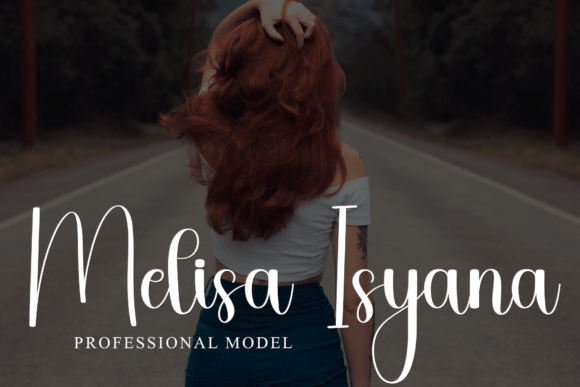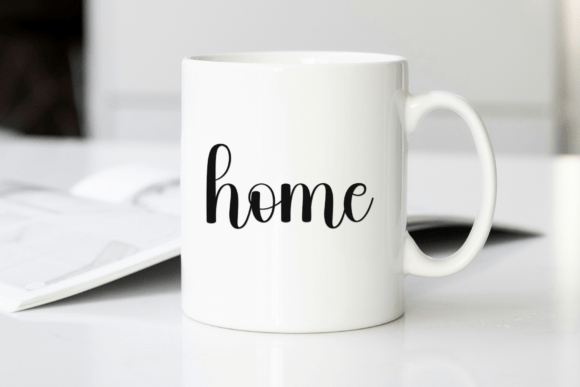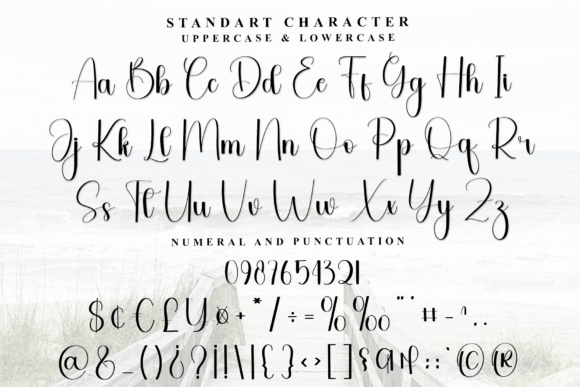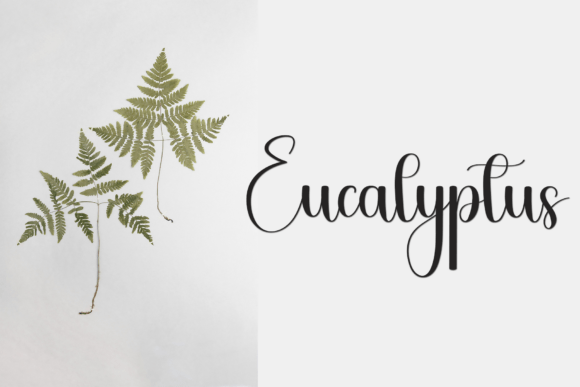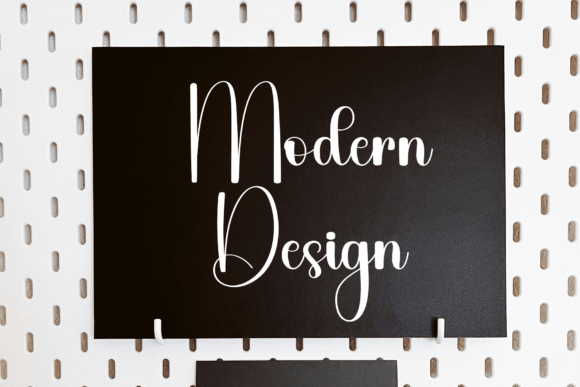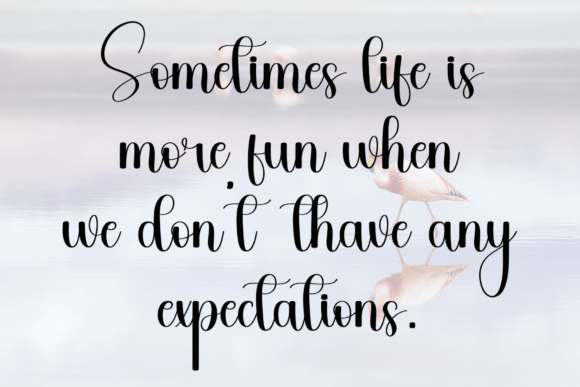
Discover the Charm of Danied Font: A Casual and Creative Companion for Designers
In the world of typography, fonts play a crucial role in conveying emotions and setting the tone for various design projects. If you’re a designer or crafter looking for a font that exudes warmth, friendliness, and a touch of playfulness, then Danied Font is an excellent choice. This casual and creative font is perfect for personal projects, invitations, social media graphics, and any design that requires a relaxed and approachable feel.
The Unique Characteristics of Danied Font
Danied Font boasts round, playful strokes that create a charming and laid-back atmosphere. Its hand-drawn aesthetic adds a fun and unique touch to any design, making it stand out from more traditional fonts. The font’s casual nature makes it an ideal choice for designers who want to add a personal touch to their work. Whether you’re creating a birthday invitation, a social media post, or a personal blog, Danied Font is sure to bring a smile to your audience’s faces.
Technical Features of Danied Font
Danied Font is a versatile font that caters to the needs of designers and crafters alike. Its relaxed and approachable feel makes it suitable for a wide range of projects, including:
• Personal projects: Add a touch of warmth and friendliness to your personal blog, journal, or scrapbook.
• Invitations: Create charming and playful invitations for birthdays, parties, or special events.
• Social media graphics: Elevate your social media posts with a unique and eye-catching font that grabs attention.
• Crafting projects: Use Danied Font to add a personal touch to your DIY projects, such as handmade cards, gift tags, or labels.
Tips for Using Danied Font Effectively
To get the most out of Danied Font, consider the following tips:
• Pair Danied Font with complementary fonts to create visual interest and contrast.
• Experiment with different colors and textures to enhance the font’s playful and hand-drawn feel.
• Use Danied Font in combination with graphics and illustrations to create engaging and dynamic designs.
• Don’t be afraid to get creative and try out new and innovative ways to use Danied Font in your designs.
Danied Font is a charming and versatile font that is sure to become a favorite among designers and crafters. Its casual and creative nature makes it perfect for a wide range of projects, from personal designs to commercial applications. With its standard PUA Encoded glyphs and compatibility with popular design software, Danied Font is easy to use and incorporate into your design workflow. So why not give Danied Font a try and discover the charm of this delightful font for yourself?